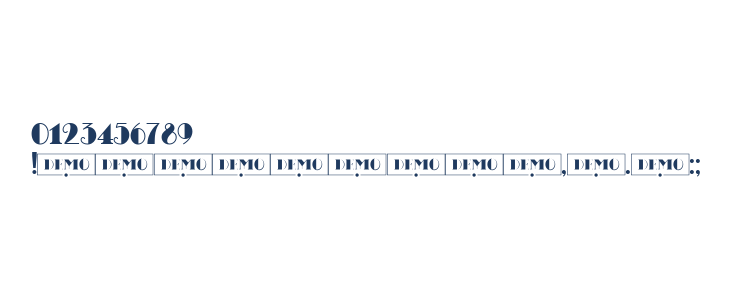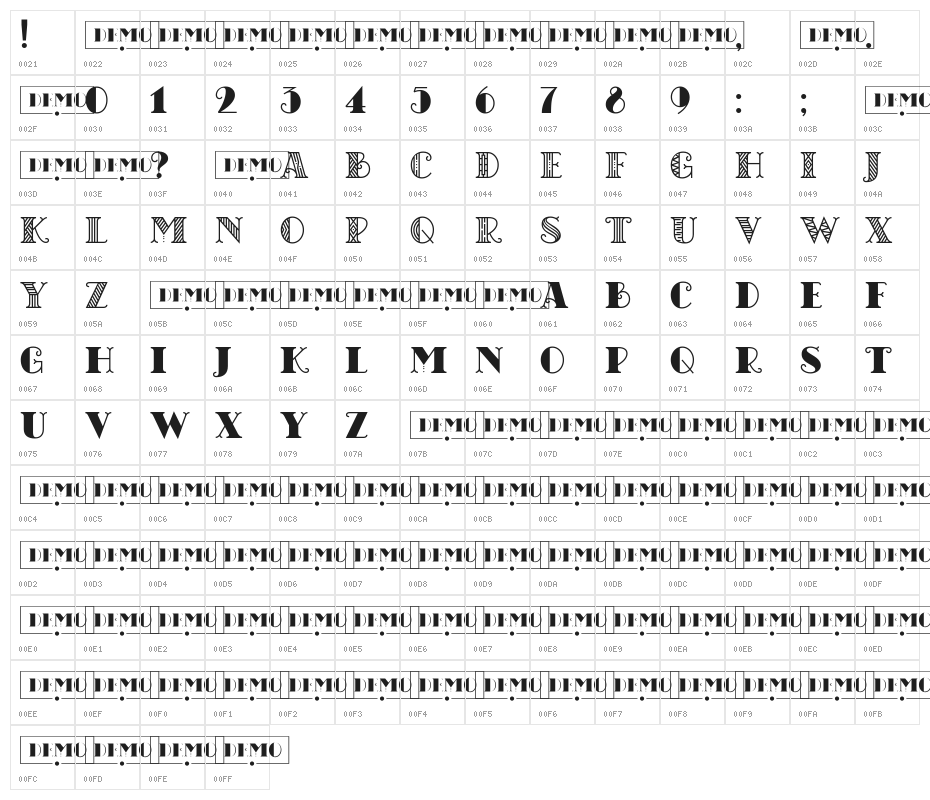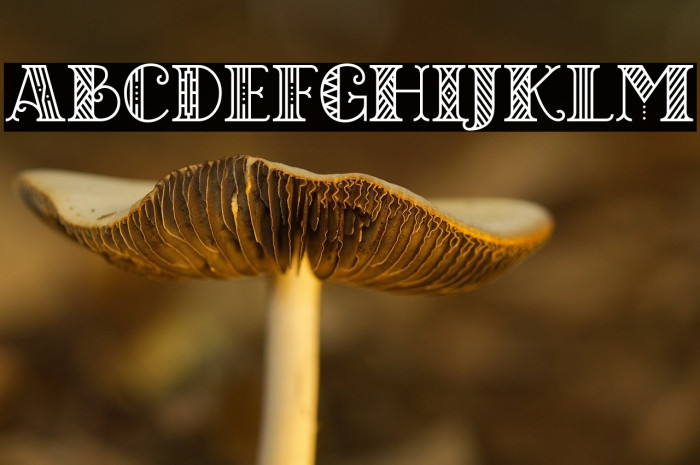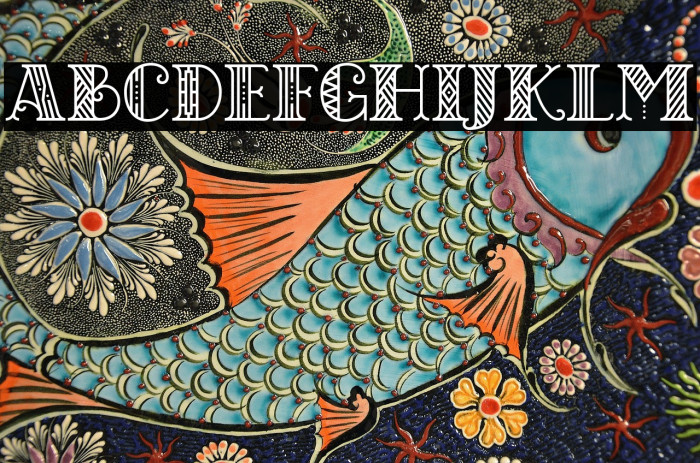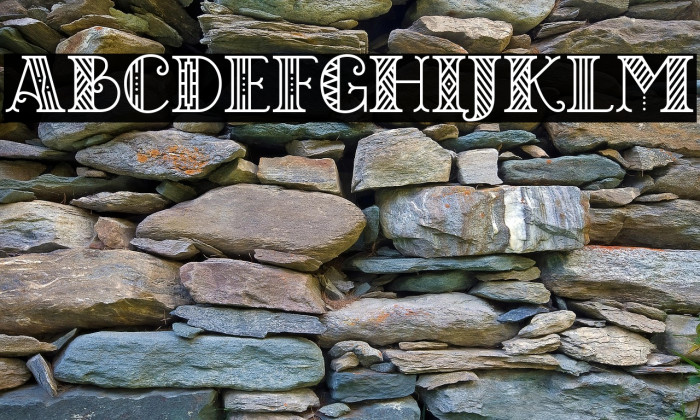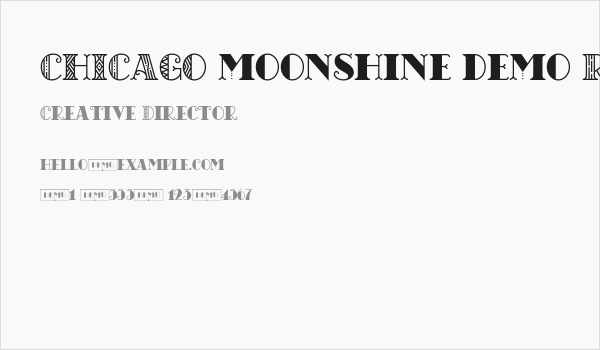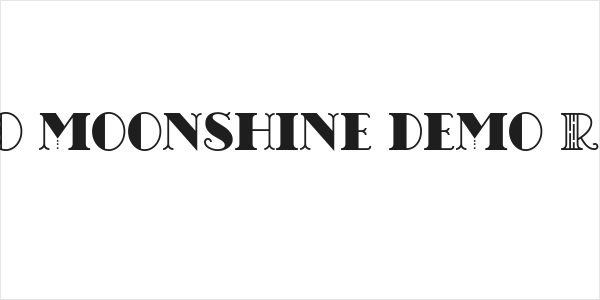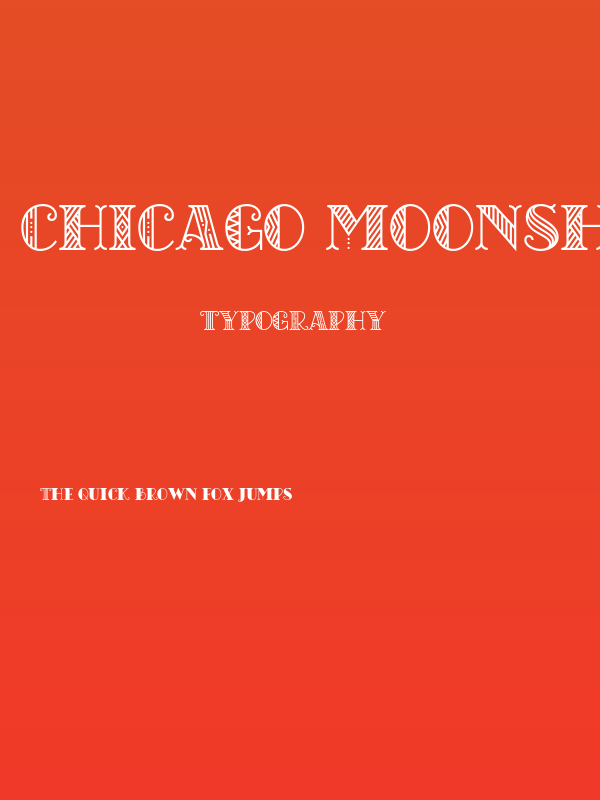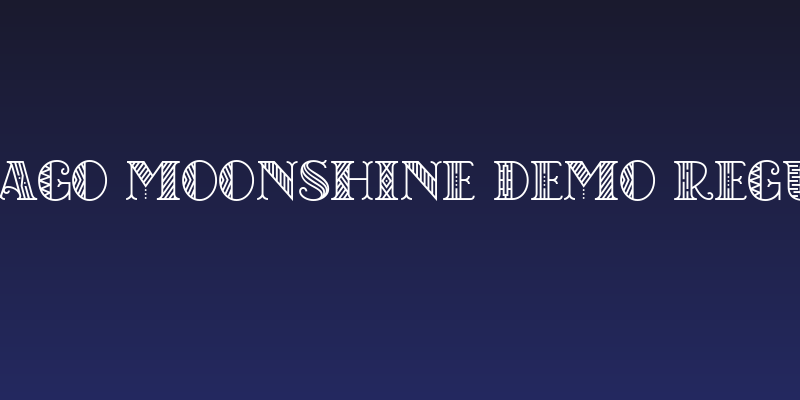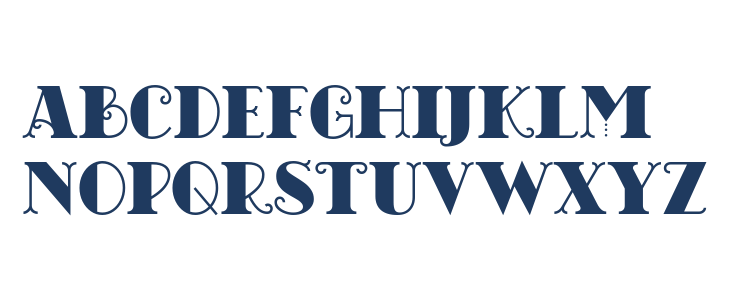
CHICAGO moonshine demo Regular Font
CHICAGO moonshine demo Regular Description
This font features a unique blend of decorative and bold elements, characterized by intricate patterns within the letterforms. The uppercase letters exhibit a mix of stripes and dots, creating a visually striking appearance. The lowercase letters maintain a consistent style with elegant curves and flourishes. The numerals are bold and distinct, with a playful yet sophisticated design. The special characters complement the overall aesthetic, adding to the font's versatility. This font stands out with its high contrast and decorative style, making it suitable for eye-catching designs.
| Proposed Projects | Ideal for branding, posters, and event invitations where a bold statement is needed. |